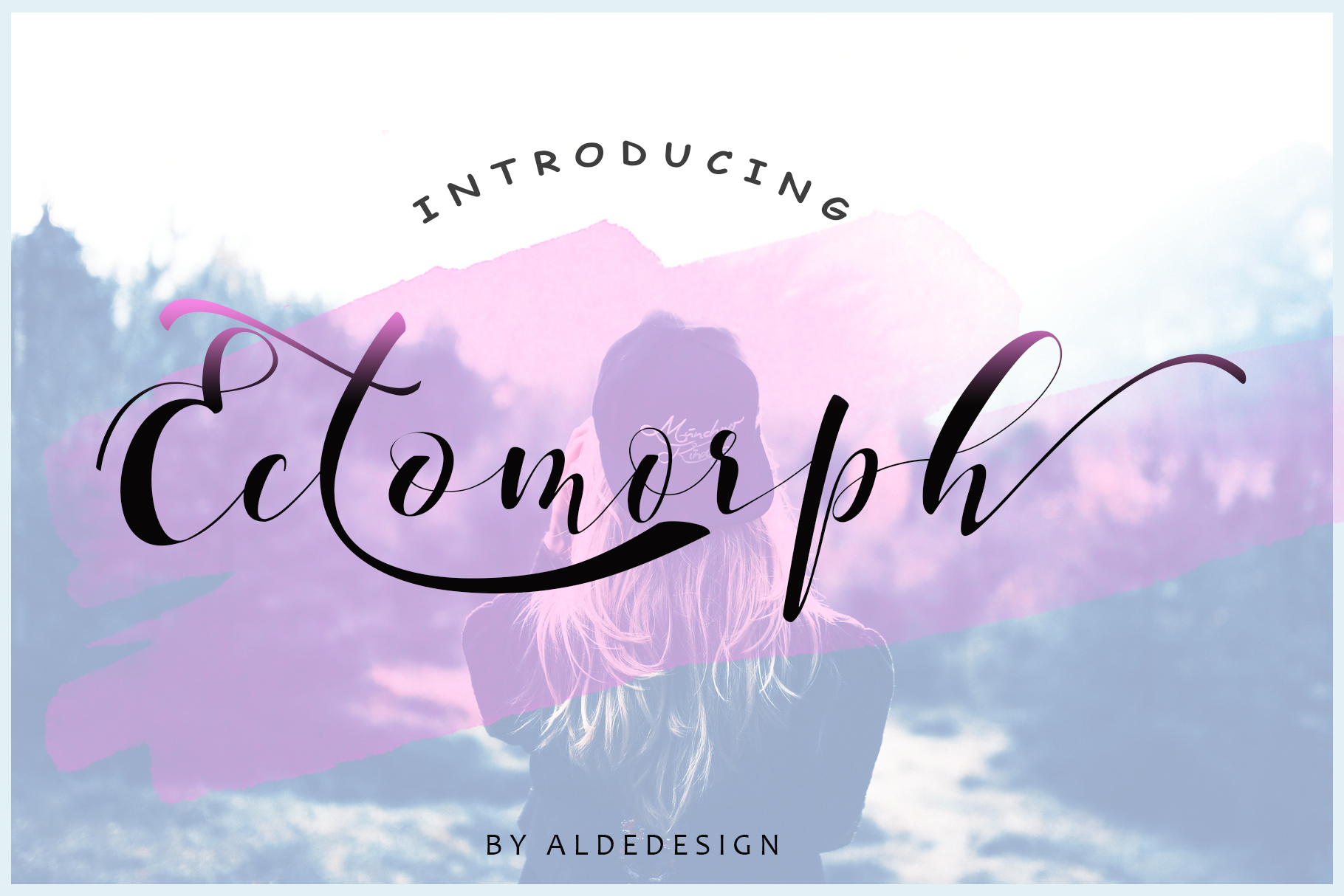
Ectomorph Font: Modern Script Handwritten Style for Campaigns
Ectomorph Script Handwritten Fonts for Social Media Launch Graphics
Last Tuesday, while finalizing the visual assets for a new sustainable skincare line launch, I hit a familiar creative wall. The product photography was stunning, and the copy was sharp, but the headline typography felt disconnected from the brand’s authentic voice. This is often where Ectomorph enters my workflow as a strategic solution. Ectomorph Script is a beautiful handwritten font with stylistic alternates, swash, titling and multilingual support, making it an immediate fix for campaigns that need to feel personal yet polished. When designing Instagram carousel covers or Pinterest pins, this script handwritten typeface provides the organic texture that stock fonts simply cannot replicate. In this specific launch campaign, swapping a rigid serif header for Ectomorph transformed the graphic from a generic advertisement into what looked like a founder’s personal note. For digital marketers managing multiple content streams, having Fonts like Ectomorph in your asset library ensures you can pivot quickly between professional announcements and casual community engagement without losing brand cohesion.
Using Ectomorph Stylistic Alternates for YouTube Thumbnail Visibility
Creating high-contrast YouTube thumbnails requires Ectomorph and other display Fonts to remain legible at small sizes while retaining character. During a recent webinar promotion series, I needed a title treatment that would stand out against a busy video background without looking cluttered. Ectomorph Script is a beautiful handwritten font with stylistic alternates, swash, titling and multilingual support, which proved essential for optimizing text hierarchy on screen. By utilizing the built-in titling capitals and selecting specific stylistic alternates, I could adjust the letterforms to fit tight spaces without sacrificing the modern and casual flair that defines the channel's aesthetic. Unlike standard script fonts that often blur when scaled down for mobile previews, Ectomorph maintains distinct stroke definition. This readability is critical for click-through rates; if viewers cannot instantly parse the handwritten text in a fraction of a second, the thumbnail fails. Using these alternate characters allows creators to customize the word shape, ensuring the keyword remains the focal point even when overlaid on complex imagery.
Ectomorph Multilingual Support for Global Email Marketing Banners
Expanding a seasonal sale campaign to international markets introduced a typographic challenge that only Ectomorph could solve effectively. Many script handwritten fonts break completely when switching to French, Spanish, or German character sets, forcing designers to revert to mismatched system fonts. However, Ectomorph Script is a beautiful handwritten font with stylistic alternates, swash, titling and multilingual support, allowing our email banners to maintain visual consistency across all regional variations. When preparing the header graphics for the European segment of the sale, the accented characters in Ectomorph matched the weight and flow of the English base perfectly. This level of detail matters immensely for brand trust; audiences subconsciously recognize when typography has been localized properly versus when it has been patched together. For marketing teams running global ads or localized landing pages, this multilingual capability eliminates hours of manual kerning adjustments and font hunting, streamlining the production process significantly.
Pairing Ectomorph with Sans Serif Fonts for Landing Page Headers
A successful landing page relies on clear visual hierarchy, and pairing Ectomorph with clean sans serif Fonts creates the perfect balance of emotion and information. While Ectomorph Script is a beautiful handwritten font with stylistic alternates, swash, titling and multilingual support, it functions best as a display element rather than body copy. In a recent course launch project, I used Ectomorph exclusively for the main value proposition and testimonial highlights, anchoring it with a neutral geometric sans serif for the feature lists and pricing tables. This contrast guides the user’s eye naturally through the sales funnel. The modern and casual flair of the script draws attention to the emotional hooks, while the structured supporting text delivers the logical details. Marketers should avoid using this script handwritten style for long paragraphs or navigation menus; instead, leverage its personality for short, impactful statements that benefit from a human touch. This strategic pairing ensures the page converts effectively without overwhelming the visitor with excessive decoration.
Ectomorph Swash Features for Elegant Product Packaging Design
Physical touchpoints require the same digital-first thinking as online ads, and Ectomorph brings necessary versatility to packaging and merchandise design. When designing unboxing cards and thank-you notes for an e-commerce client, we utilized Ectomorph Script because it is a beautiful handwritten font with stylistic alternates, swash, titling and multilingual support. The extended swashes added a premium, bespoke quality to the packaging inserts that elevated the perceived value of the product inside. These decorative elements work exceptionally well on dark backgrounds with light ink, creating a luxurious contrast that feels intentional and high-end. For brands selling lifestyle products, jewelry, or artisanal goods, this script handwritten aesthetic communicates craftsmanship before the customer even opens the box. It is important to test print proofs early, as the intricate details of Ectomorph may require specific paper weights or printing techniques to render crisply, but the result is a tangible brand experience that reinforces the digital campaign messaging.
Optimizing Ectomorph Readability for Mobile-First Digital Ads
Mobile optimization dictates modern ad performance, and Ectomorph must be tested rigorously on vertical screens before any budget is spent. Because Ectomorph Script is a beautiful handwritten font with stylistic alternates, swash, titling and multilingual support, it offers flexibility in adjusting density for smaller viewports. In a recent Instagram Stories ad set, I found that the standard lowercase connections became too tight on narrow phone displays, reducing legibility. By switching to the titling alternates and increasing tracking slightly, the script handwritten text remained crisp and readable even during fast swipes. Marketers should always preview ad creatives on actual devices rather than relying solely on desktop monitors. Dark mode compatibility is another crucial factor; ensuring Ectomorph has sufficient stroke width to glow against OLED black backgrounds prevents the text from vibrating or disappearing. This technical diligence ensures that the aesthetic appeal of the font translates directly into campaign effectiveness, keeping engagement high regardless of how the audience consumes the content.